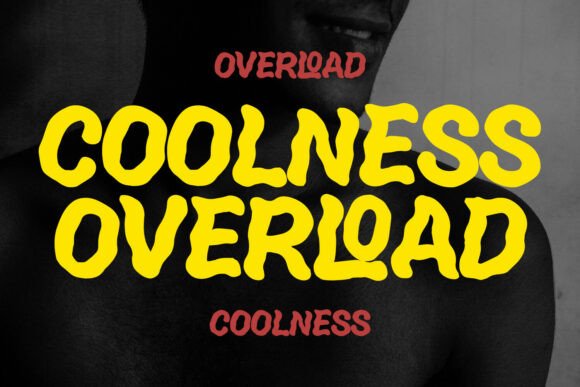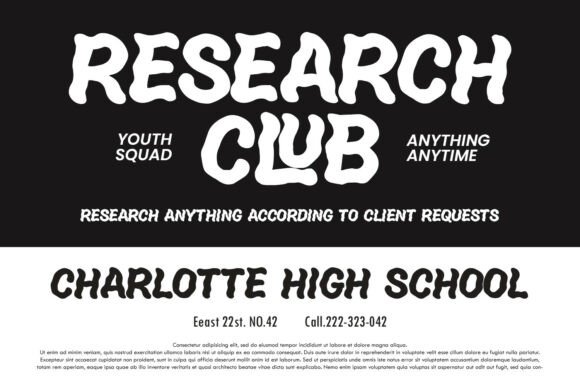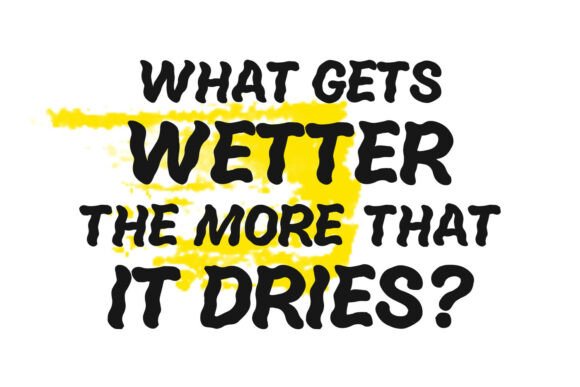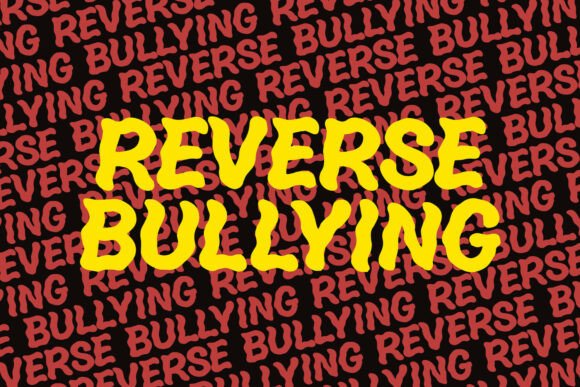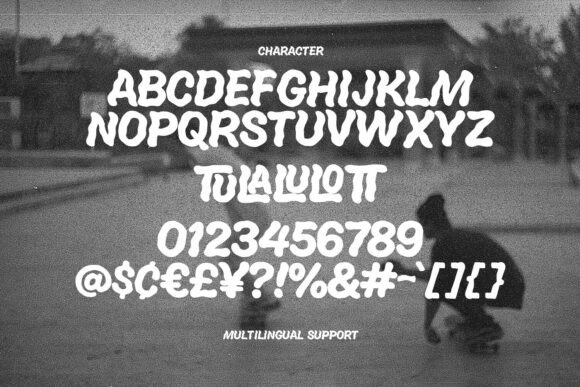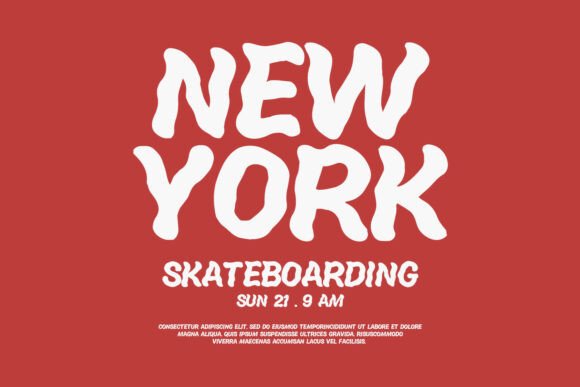
Introduction to Descret Solvero Font
Have you ever stumbled upon a font that instantly sparks your creativity and makes you want to create something amazing? For designers, this moment is like striking gold, and it’s exactly what happens when you come across the Descret Solvero Font. This bold, energetic display font is designed to make a statement, and it does just that with its fluid, liquid-like silhouettes and wavy aesthetic.
As a design resource, Descret Solvero Font breaks away from rigid structures, offering a hand-drawn, psychedelic vibe that is both playful and impactful. Its unique characteristics, such as wavy and distorted edges, heavyweight impact, and all-caps versatility, make it perfect for designers looking for a high-quality font to elevate their creative projects.
With its retro skate aesthetic and transparent background, Descret Solvero Font is a valuable addition to any designer’s toolkit, offering endless possibilities for creative projects. Whether you’re working on a free download or a paid design, this font is sure to make your work stand out.
Key Features of Descret Solvero Font
- Unique, modern font style with a transparent background, perfect for adding a touch of elegance to designs
Honest Review: Descret Solvero Font
As a designer, I’m always on the lookout for high-quality design resources that can elevate my creative projects. The Descret Solvero Font is one such find that has caught my attention.
- High-quality design that’s perfect for creative projects.
- Transparent background, making it easy to use in various design contexts.
- A wide range of styles and weights to suit different design needs.
- Limited character set, which might be a concern for designers who need to use it for extensive text-based projects.
- No bold or italic variations, which could be a drawback for designers who prefer to emphasize text.
Overall, the Descret Solvero Font is a solid addition to any designer’s toolkit. While it may have some limitations, its high-quality design and free download make it an excellent resource for creative projects. With a little creativity, you can work around its limitations and achieve stunning results.
Tips for Getting the Most Out of Descret Solvero Font
To get the most out of Descret Solvero Font, use it with a transparent background to create a stylish and modern look. You can also experiment with different font sizes, colors, and styles to add depth and interest to your design.
Descret Solvero Font is perfect for creative projects such as logos, business cards, and social media graphics. It’s also great for designing brochures, flyers, and posters. With its high-quality design and transparent background, Descret Solvero Font is sure to add a professional touch to any project.